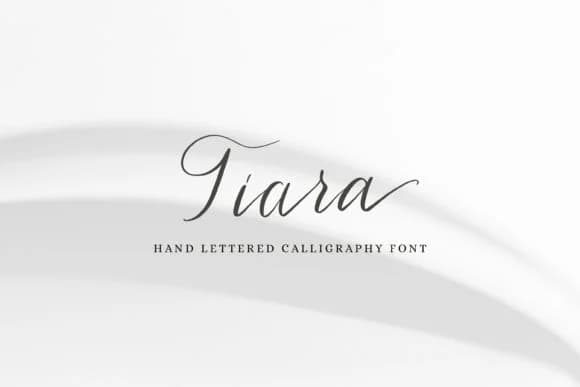
Imagine designing a wedding invitation suite where the guest names need that personal, hand-penned quality without looking loose or amateurish. Tiara Font, created by Primafox Design, is a modern calligraphy script that brings exactly that refined touch to your layouts. The typeface balances contemporary flair with classical flourishes, making it equally credible in luxury branding scenarios as it is in intimate stationery projects.
This script handles a surprisingly broad range of applications. High-end packaging design for boutique skincare and wellness lines benefits enormously from its sophisticated letterforms. Restaurant menu headers and wine label typography also sit beautifully in this typeface's rhythm. Personalized Etsy product listings for handmade goods punch harder with Tiara's calligraphic presence, and beauty brand social media graphics gain that hand-crafted authenticity without veering into trendy territory. Custom label designs for small-batch artisan products are where this font truly shines. It works for both analog and digital applications.
The uppercase letters carry real weight and presence, which means you can anchor headings or logotypes with genuine confidence without padding them out with extra elements. Each form feels intentional and substantial. Download Tiara Font on Creative Fabrica and start building that sophisticated, timeless calligraphy quality into your next project.
Tiara Font is a script font that shines as a display or heading face. Pair it with a clean sans-serif or serif font for body text β the contrast creates a clear hierarchy while the two styles stay balanced and easy to read.
Tiara Font